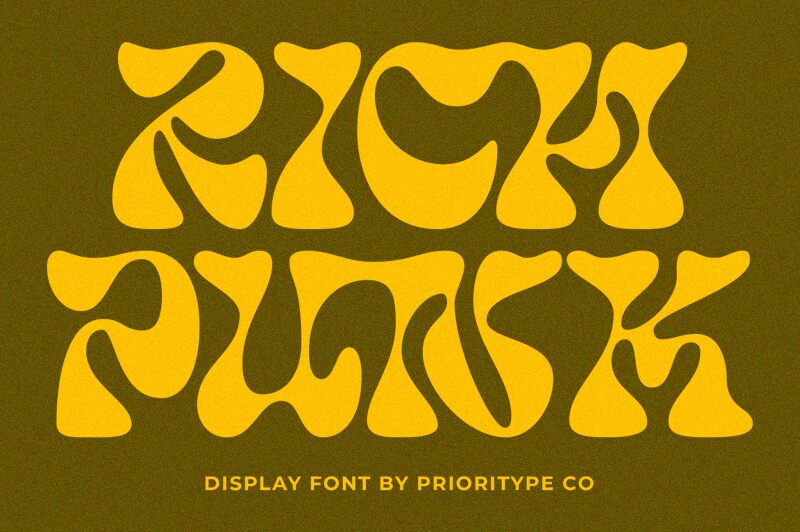
Rich Punk font by Prioritype Co graciously brings its fluidity and vibrancy to the artistic table. The gorgeous single-style font celebrates artistic freedom by inviting an experience that throws it back to the vivid expression of the 1960s and 1970s. Rich Punk is a true product of a groovy era, a retro font with dynamic letters that allow an engaging flow of text when used.
The stylish font is as versatile as it is beautiful. Use it for album covers, branding projects, merchandise and packaging designs, apparel items, and other visual projects. Use it for titles and logotypes for magazines, books, posters, and other forms of printed media, or set a more modern tone with social media posts and cover images.